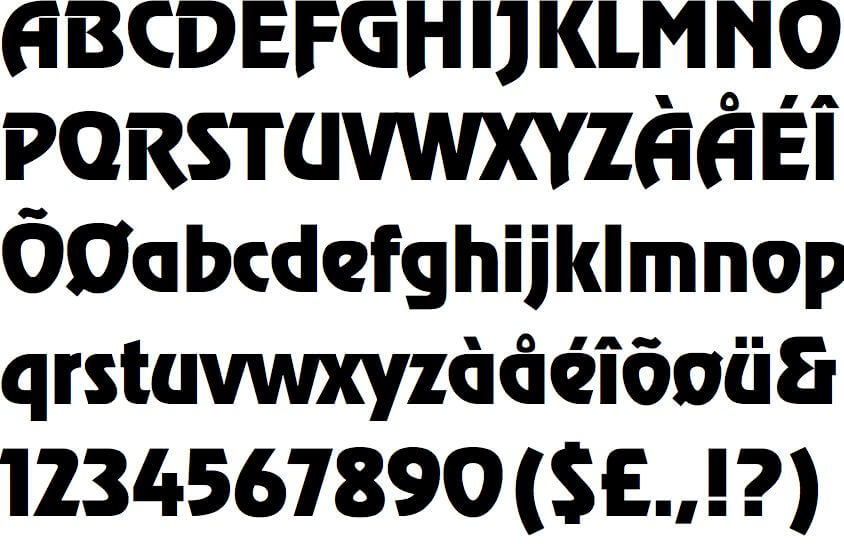
Introducing an amazing sans serif font called Revue Font. This versatile font can be used to design logos, brochures, posters, business cards, invitations, and greeting cards. It features a bold, modern style that is available for free download.